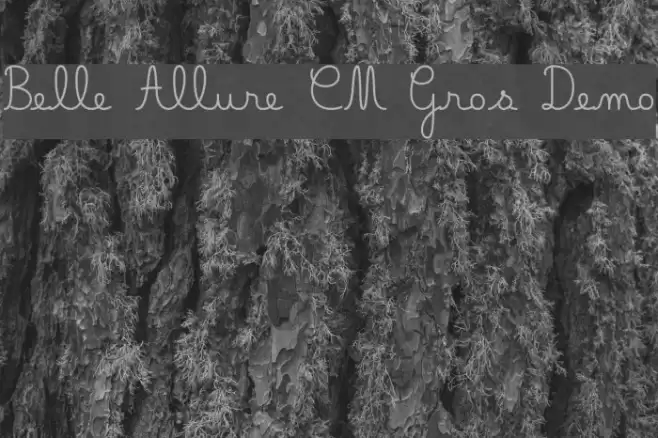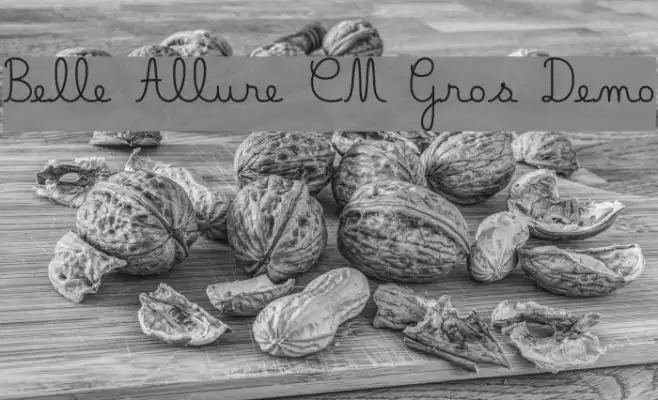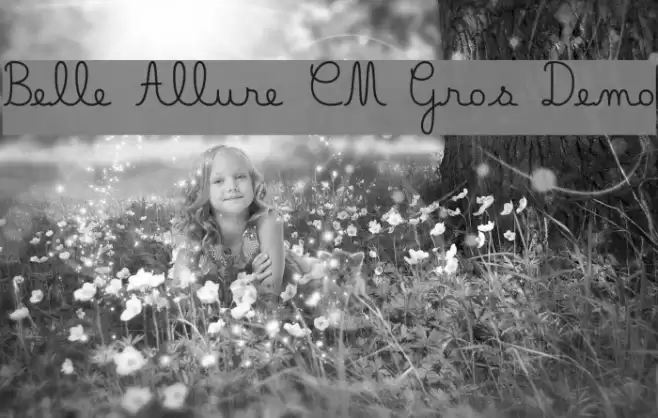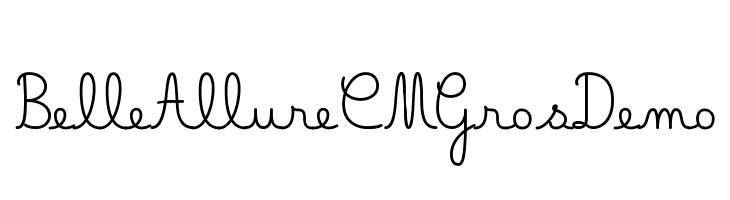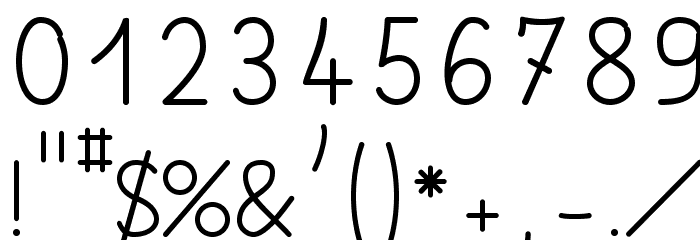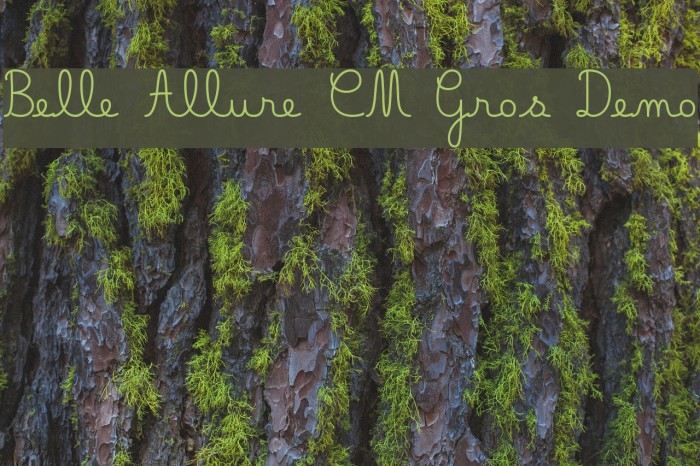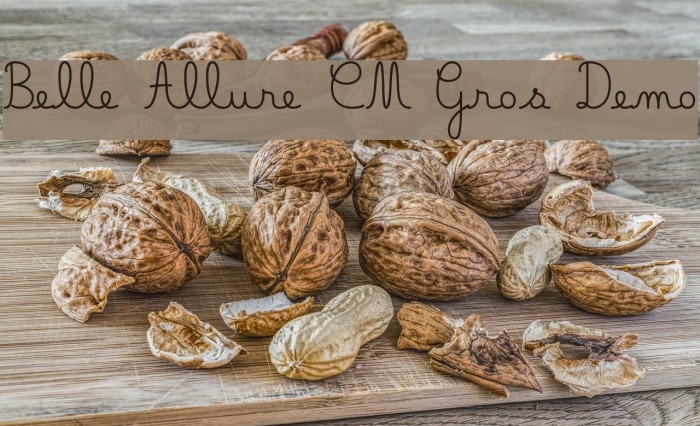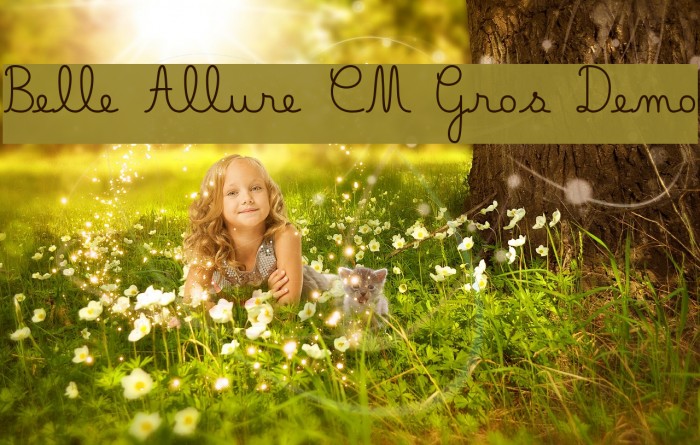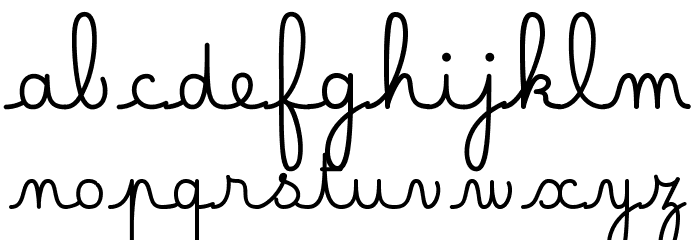
Belle Allure CM Gros Demo Font
Belle Allure CM Gros Demo Description
This font features a playful and elegant script style, characterized by its flowing, interconnected letters. The uppercase letters are bold and prominent, with a whimsical flair that adds a touch of sophistication. The lowercase letters maintain a consistent flow, enhancing readability while preserving the font's artistic nature. Numbers are clear and rounded, complementing the overall design. Special characters are creatively integrated, maintaining the font's cohesive look. This font is perfect for projects that require a personal and artistic touch, such as invitations, greeting cards, and branding materials.
A playful and elegant script font with flowing, interconnected letters from Script fonts.
- Proposed Projects: Ideal for invitations, greeting cards, branding, and artistic projects.
- Use Case: Logos, Headlines, Artistic projects